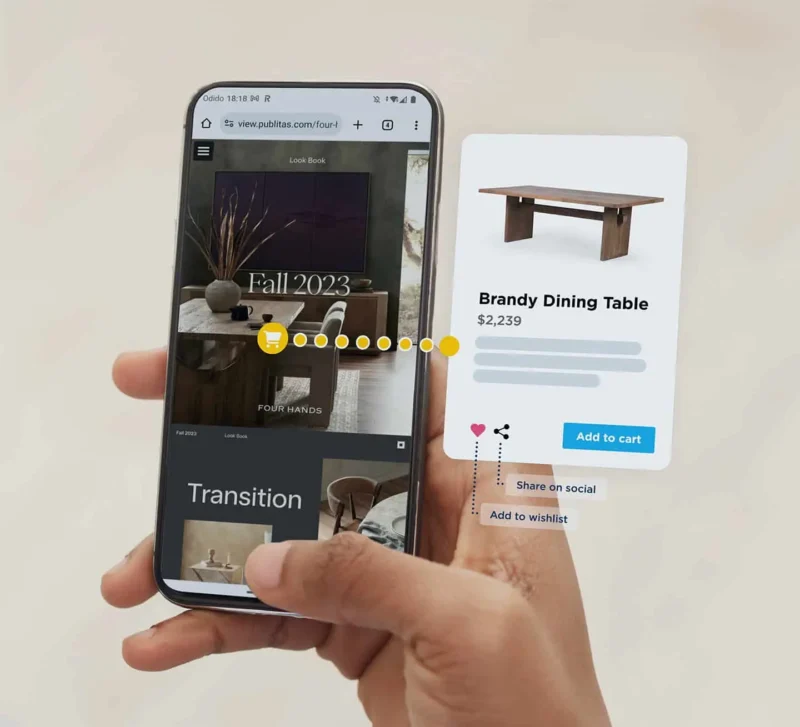
Best Practices for Choosing Fonts in Digital Catalogs That Drive Sales
Typography is one of those elements of visual design that is easy to take for granted when you get it right — but when you get it wrong, it can kill the entire experience. In the world of digital catalogs, where your brand is competing for attention in a high-scrolling, visually driven environment, the fonts you choose have a much greater influence than simply getting information across. They decide your customer’s perception of your brand and can even directly affect their buying decisions.
Fonts are not just words on paper. They’re a tone. They create the mood. They guide the eye. And in an online catalog — where images, product information, and calls to action come together — typography operates behind the scenes to trust or lose trust.
The wrong font selection will make your catalog appear cheap, cluttered, or hard to read. But the right font strategy? It can increase readability, create emotional connection, and even drive a customer toward a sale.
The Emotional Impact of Typography in Sales
When consumers browse a virtual catalog, they’re not just buying rationally — they’re experiencing your brand emotionally. Fonts have the power to evoke emotions in an instant. A clean, high-tech sans-serif can be pioneering and modern. A classic serif can be sophisticated and trustworthy. The carefree handwritten faces have a personal or whimsical quality. All of these small signals dictate how a consumer feels, whether they feel secure, engaged, or ready to buy.
In web catalogs especially, fonts have to accomplish more than look good. They have to function across all setups: on computers, tablets, and mobiles. They have to attract attention when the situation calls for it — on product titles or calls-to-action, for instance — but fade into the background when subtlety is needed for body text or details.
The balance is in the art. Fonts have to support your brand but also need to be incredibly readable. They have to create hierarchy but not be distracting. And above all, they have to take a customer seamlessly through their buying process.
Readability vs. Personality: Finding the Sweet Spot
Choosing typefaces for a web catalog generally involves tasteful compromise between utilitarian and aesthetically appealing. On the one hand, legibility is crucial. Unless consumers can see your product labels or prices easily, they will be less inclined to linger — and even less likely to make a purchase.
But again, a purely utilitarian approach to typography will drain the emotional content of your brand. Great catalog design hits that happy medium: clean enough not to weary the eye, bold enough to make an impact.
This becomes especially worth it in product-filled catalogs where customers are browsing quickly. Product names, prices, descriptions, and specs have to be legible and scannable. But headlines, section breaks, and storytelling space leave room for expressive typography that conveys more of your brand voice.
And that doesn’t take a huge quantity of fonts. Most effective digital catalogs limit themselves to two or three distinct font types: one for headlines, one for body copy, and sometimes a third for accents or highlight callouts. Consistency builds trust. Too many conflicting fonts? That will usually convey to customers that you are disorganized — the last thing you want in a shopping environment.
How Digital Tools Simplify Typography Choices
Fortunately, designing a digital catalog today doesn’t mean you need to be a typography expert from the start. There are platforms designed to help you create your own catalog with built-in design features that make font selection easier and more cohesive.
With tools like Publitas, for example, you can take PDFs or design files and turn them into interactive, well-designed catalogs without needing high-level technical expertise. These tools often come with recommended font pairings, scaling properties, and responsive design features that automatically resize your text across devices. This means that your typography is clean and business-like regardless of the device your customer is using to scroll or browse.
Smart platforms don’t just help with looks of your fonts — they help with function as well. Clickable text, product links inside products, and optimized readability settings for peak performance all combine to make your catalog not just pretty, but highly effective at driving engagement and sales.
Fonts and Conversion: Why Details Matter
A number of brands fail to notice the extent to which little design elements — including font size, weight, spacing, and style — can have a direct impact on conversion rates. A product name that blends too heavily with a cluttered background will be overlooked. A hard-to-read or inconveniently placed price tag may lose you the sale. If your call to action is not visibly distinct enough, you can end up losing the sale altogether.
Typography structures information in a manner that visually prioritizes the most important elements. In an electronic catalog, the objective is to develop a rhythm that the user finds easy: where the eye knows what comes next, where information naturally flows, and where nothing is jarring or confusing.
Good fonts help products tell their story without friction. They signal professionalism and care — qualities customers pick up on whether they realize it consciously or not. After all, if you’ve thoughtfully designed your catalog, customers are more likely to believe you’ve thoughtfully designed your products as well.
Creating a Signature Look with Fonts
Finally, the fonts that you employ within your web catalog are a component of your brand’s signature look. Customers, over time, may associate your typography with your identity — in the identical manner that they associate your logo or color scheme with you.
That’s why it’s worth devoting some additional thought (and maybe even some testing) to your typography choices. Different fonts can influence how your products are seen: more upscale, more playful, more bold, more friendly.
In competitive e-commerce categories, where many brands are selling variations on the same items, small details like typography can differentiate your catalog. They’re another layer of brand storytelling — and in the visual-first world of online shopping, every layer counts.
The Final Word
At the end of the day, digital catalog fonts are not merely about design appearances — they’re about communication, clarity, and conversion. The right typography establishes tone, trust, and the road the shopper will take from curiosity to action.
E-catalogs are not just an online brochure — they’re a branded experience. And like all experiences, it’s the little details that count. Fonts may be understated, but their impact on what makes your customers feel, interact, and ultimately buy from your catalog is anything but insignificant.
So the next time you flip through an electronic catalog, take a second look at the typography choices. They’re doing more work than you know.